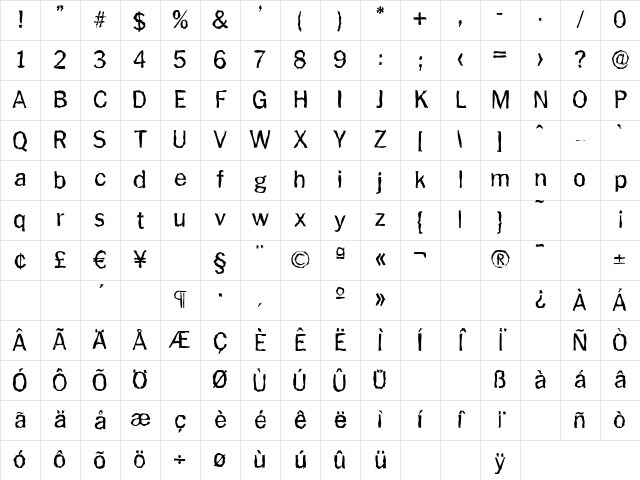
PlymouthRandom Regular Free Font
PlymouthRandom Regular
PlymouthRandom Family
Complete PlymouthRandom Regular glyph index. Displaying only characters natively supported by PlymouthRandom Regular font.
Design Context for PlymouthRandom
PlymouthRandom is a composed and adaptable typeface that performs quietly and consistently across a wide range of design contexts.